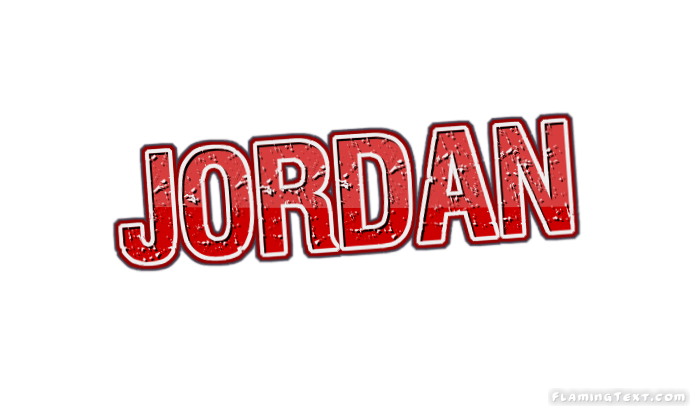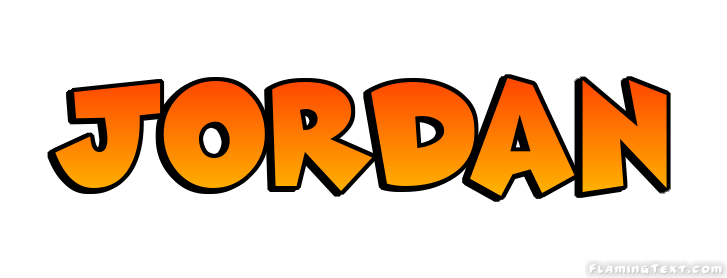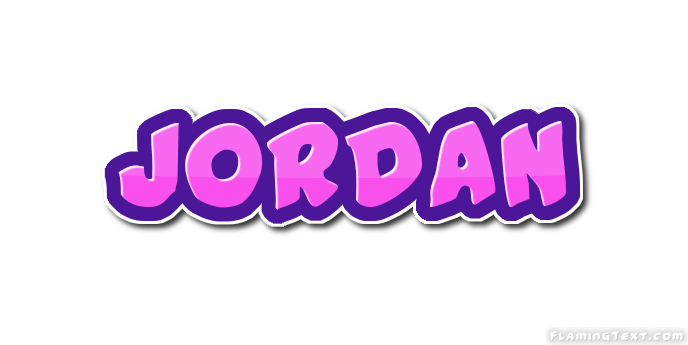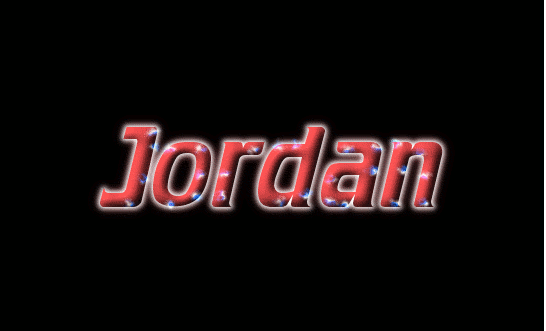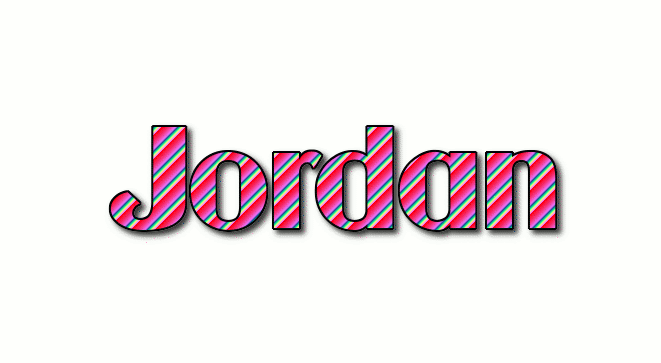
It Is A Font Of The Futura Font Family Which Is A Geometric Sans Serif Font.
Copy any font you want to use; The font used in the logo is futura extra bold condensed. Paul renner designed this and published it.
Classics (baskerville, futura, garamond) alongside hot new fonts (brice, moneta,novera). How is font villa different (unicode)? Small capital letters are designed to look like upcase capital letters, but still be as little as lowcase characters.
Jordan Is Used As A Given Name As Well As Surname For People, With Its Origins In The Name Of The Jordan River Between Jordan And Israel, Which Also Gave Its Name To The Country, Jordan.